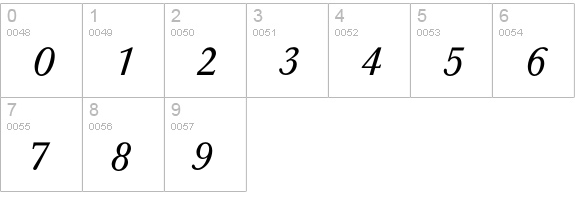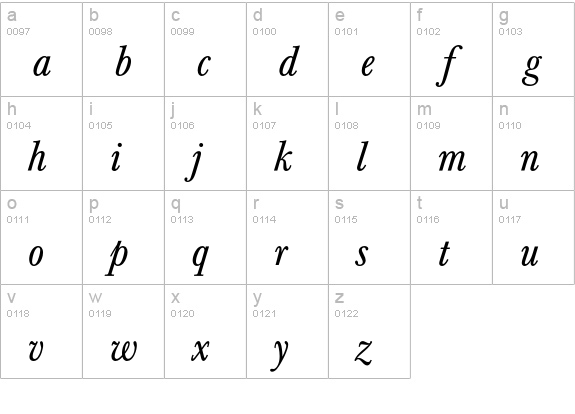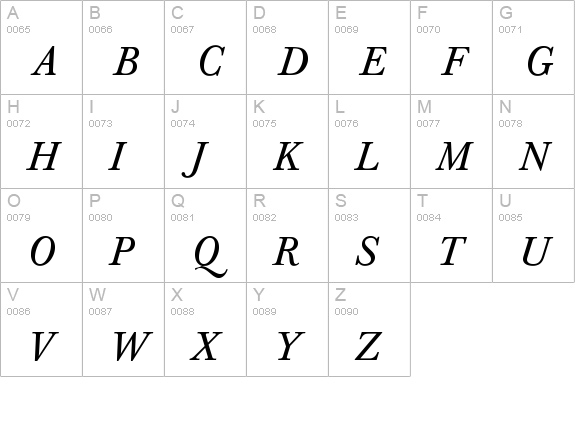
Baskerville Italic Font Details
Baskerville Italic is a distinctive, italic variant in the Baskerville typeface family \xE2\x80\x94 well suited to design and typography projects.
Baskerville Italic is a classic and elegant font style that exudes sophistication and refinement. With its slanted and graceful letterforms, Baskerville Italic adds a touch of flair and style to any design project. The italicized characters of this font convey a sense of movement and fluidity, making it perfect for adding emphasis or creating a sense of elegance in your text. What's even better is that Baskerville Italic is available for free download at FontsMarket.com. This means you can easily access and use this beautiful font in your projects without any cost. Whether you're working on a formal invitation, a stylish poster, or a sleek branding project, Baskerville Italic is sure to elevate your design with its timeless appeal and refined aesthetics. Download Baskerville Italic today and add a touch of sophistication to your typography.